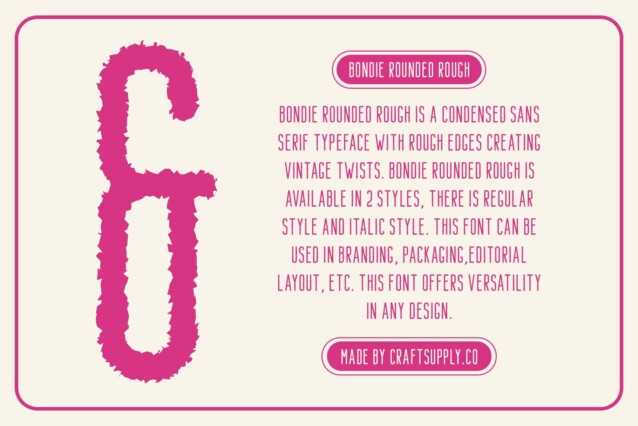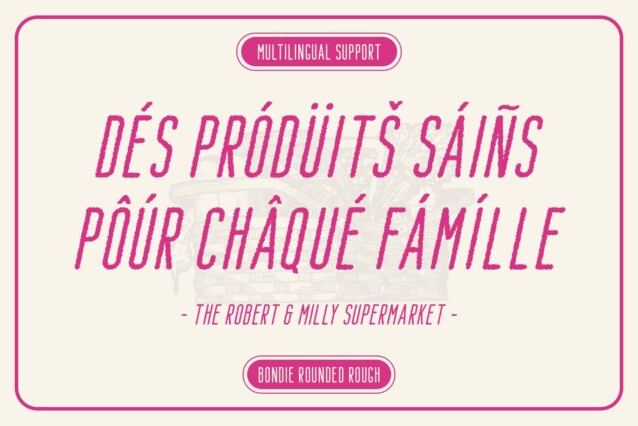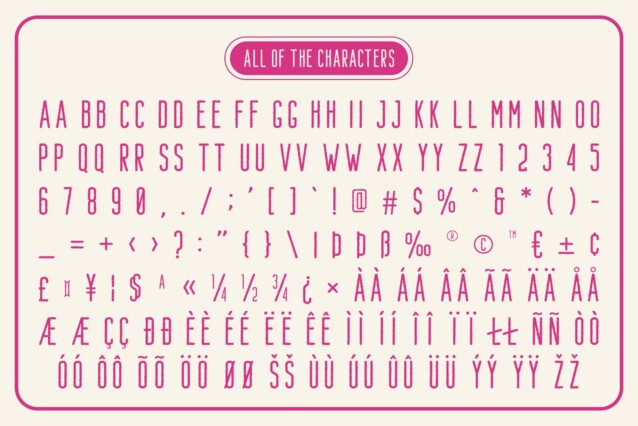
Bondie Rounded Rough Font
Bondie Rounded Rough Font – This modern sans serif font captivates with its condensed and rounded shapes, effortlessly conveying a clean and approachable impression. The soft, rounded forms imbue the typeface with a friendly and inviting quality, making it an excellent choice for projects that seek to establish warmth and connection with their audience.